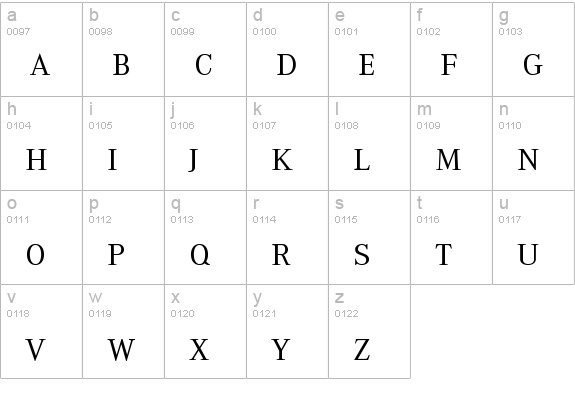
Corporate A Expert BQ Light is a refined, elegant variant in the Corporate typeface family \xE2\x80\x94 well suited to elegant body text, refined sub-headings, and luxury branding.
The Corporate A Expert BQ Light font is a sleek and sophisticated typeface perfect for corporate and professional projects. With its clean lines and modern aesthetic, this font exudes professionalism and elegance. Its light weight is ideal for adding a touch of sophistication to any design, whether it's for a business presentation, website, or marketing materials. Best of all, the Corporate A Expert BQ Light font is available for free download at FontsMarket.com. This means you can easily access this premium font without any cost, making it a valuable resource for designers, marketers, and anyone in need of a high-quality typeface for their projects. Don't miss out on the opportunity to enhance your designs with the Corporate A Expert BQ Light font – download it for free today!